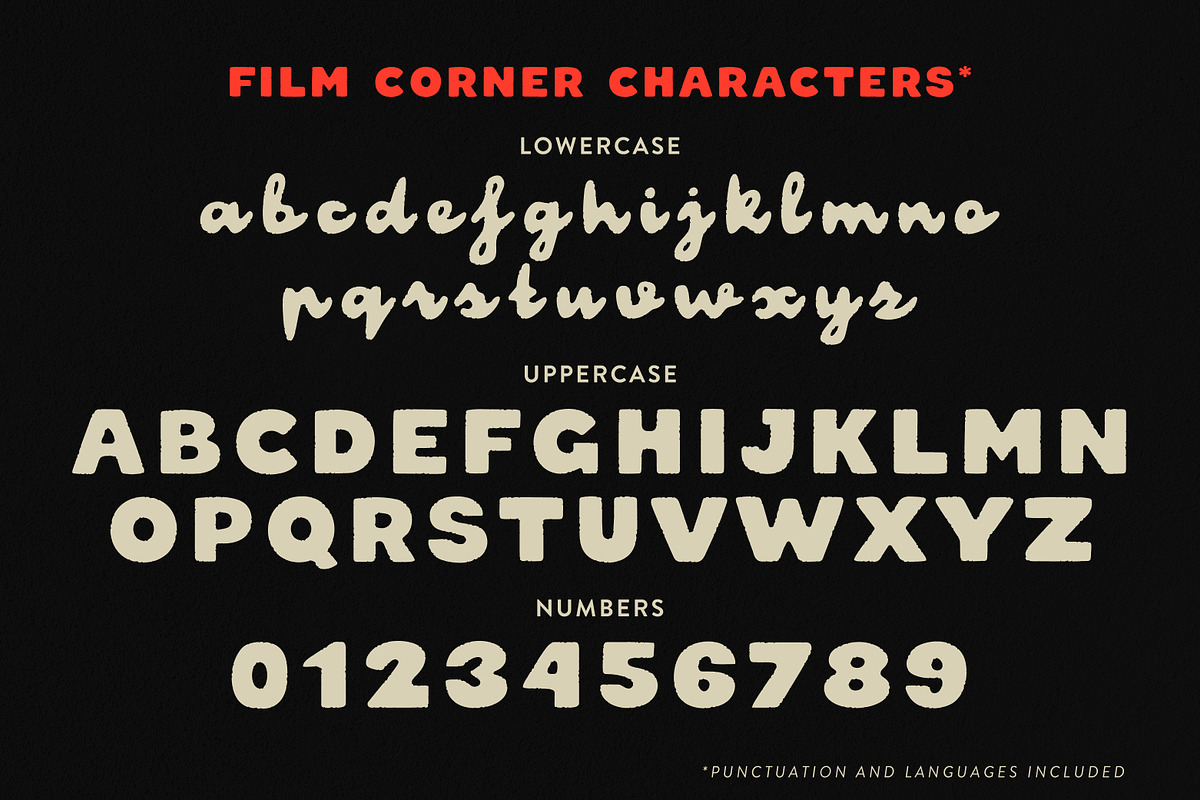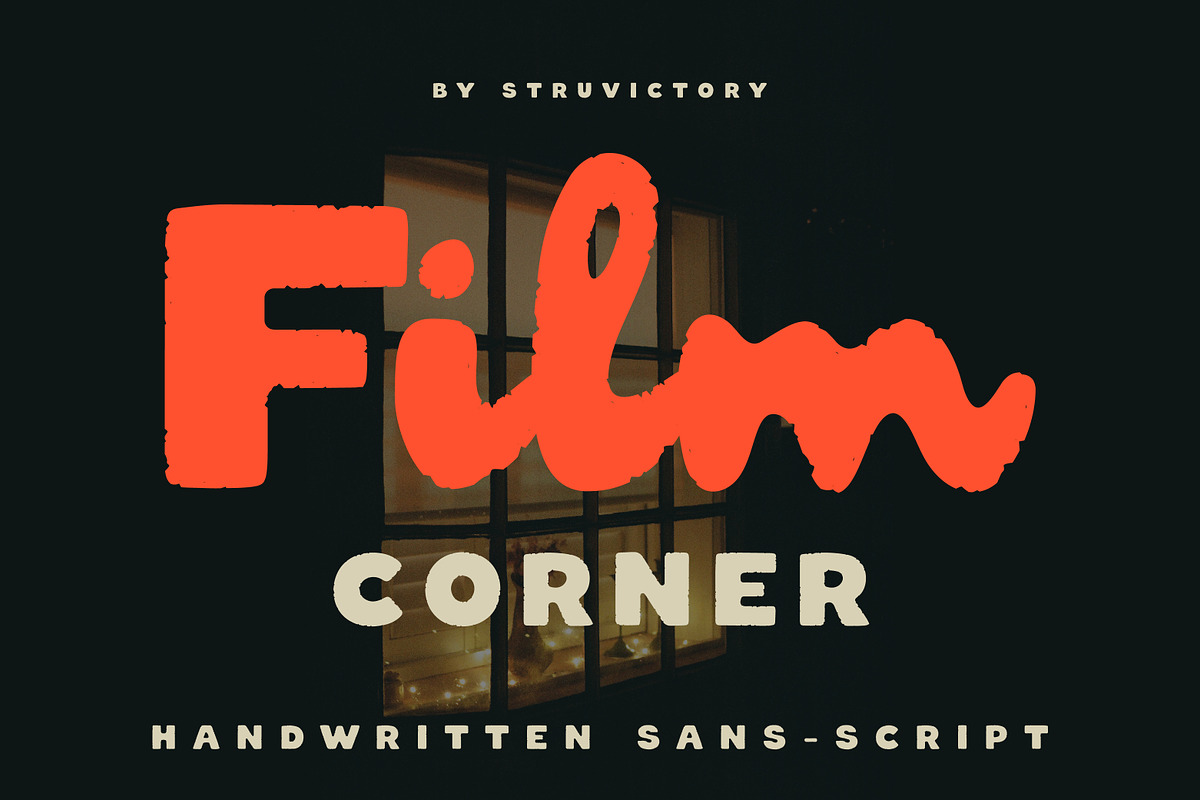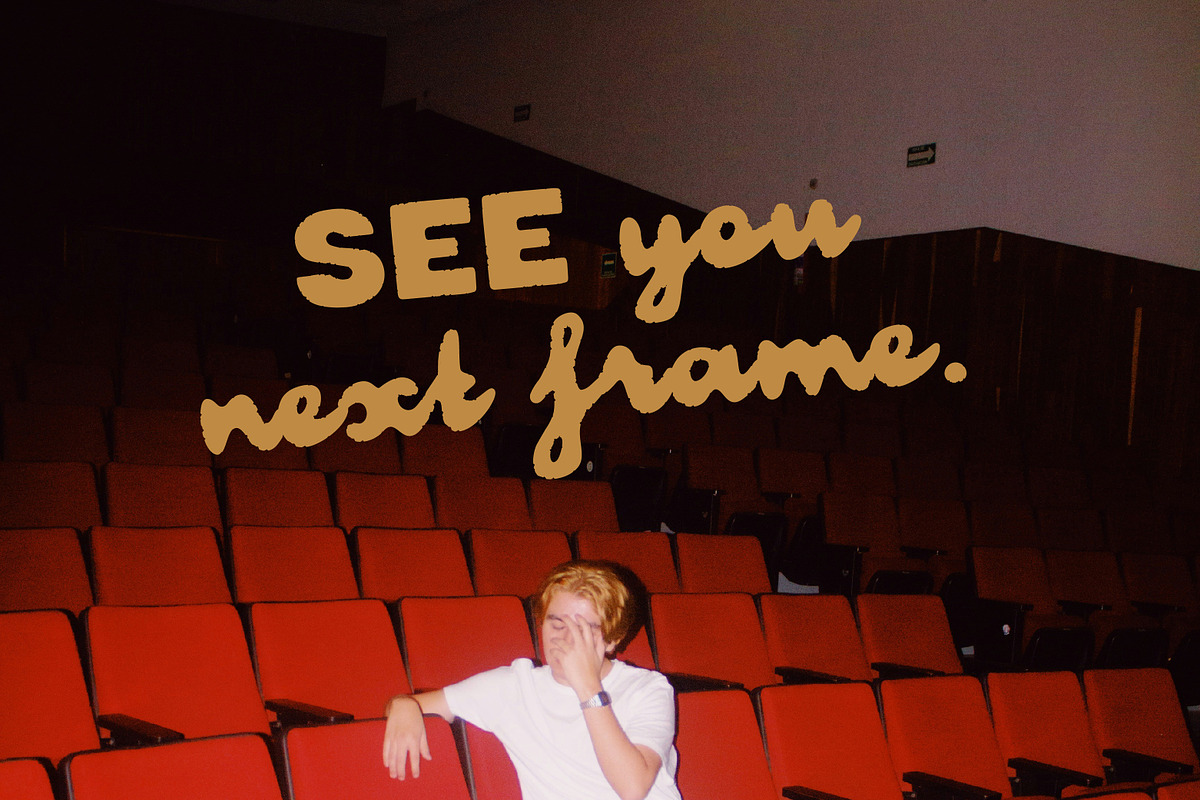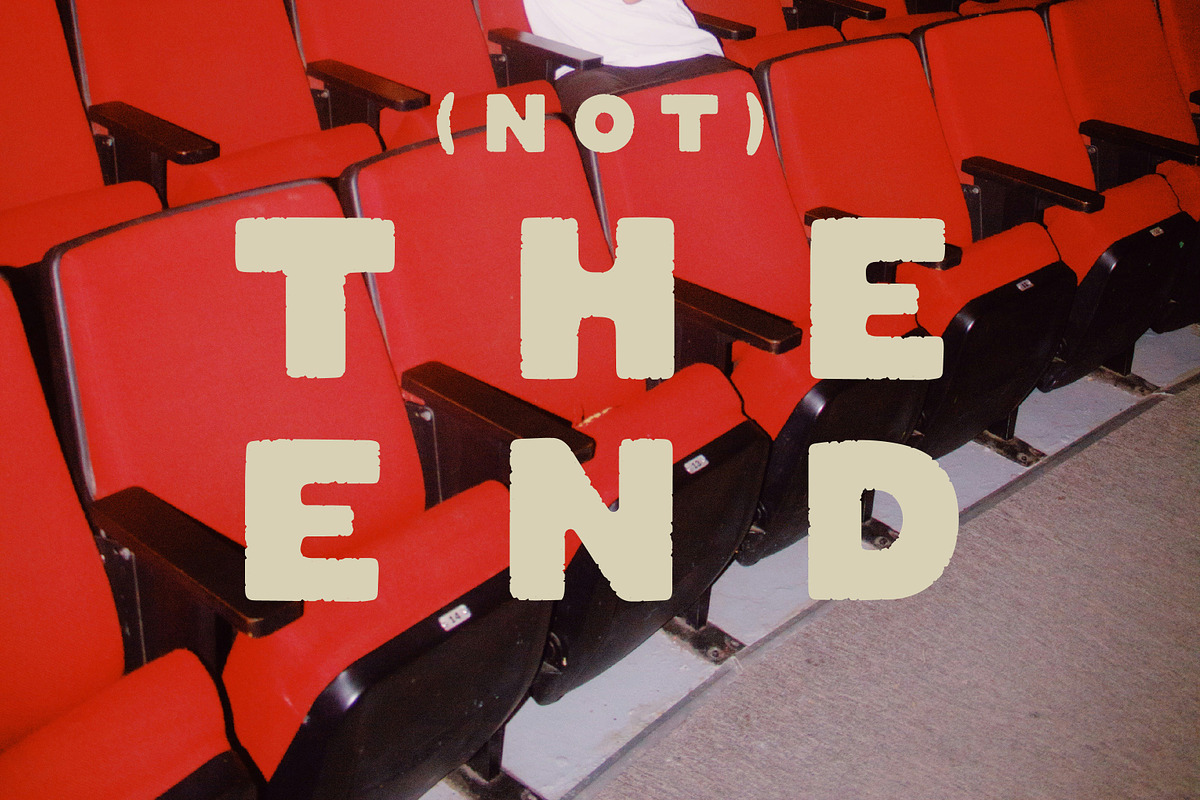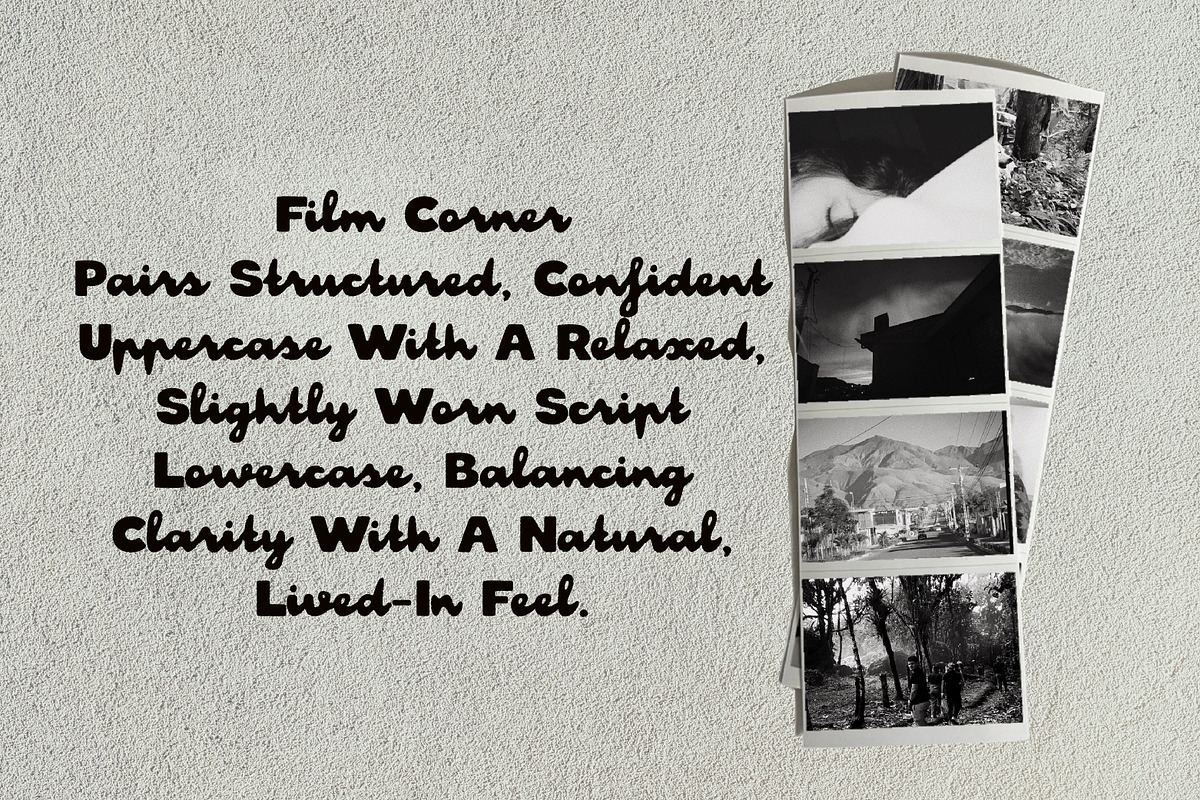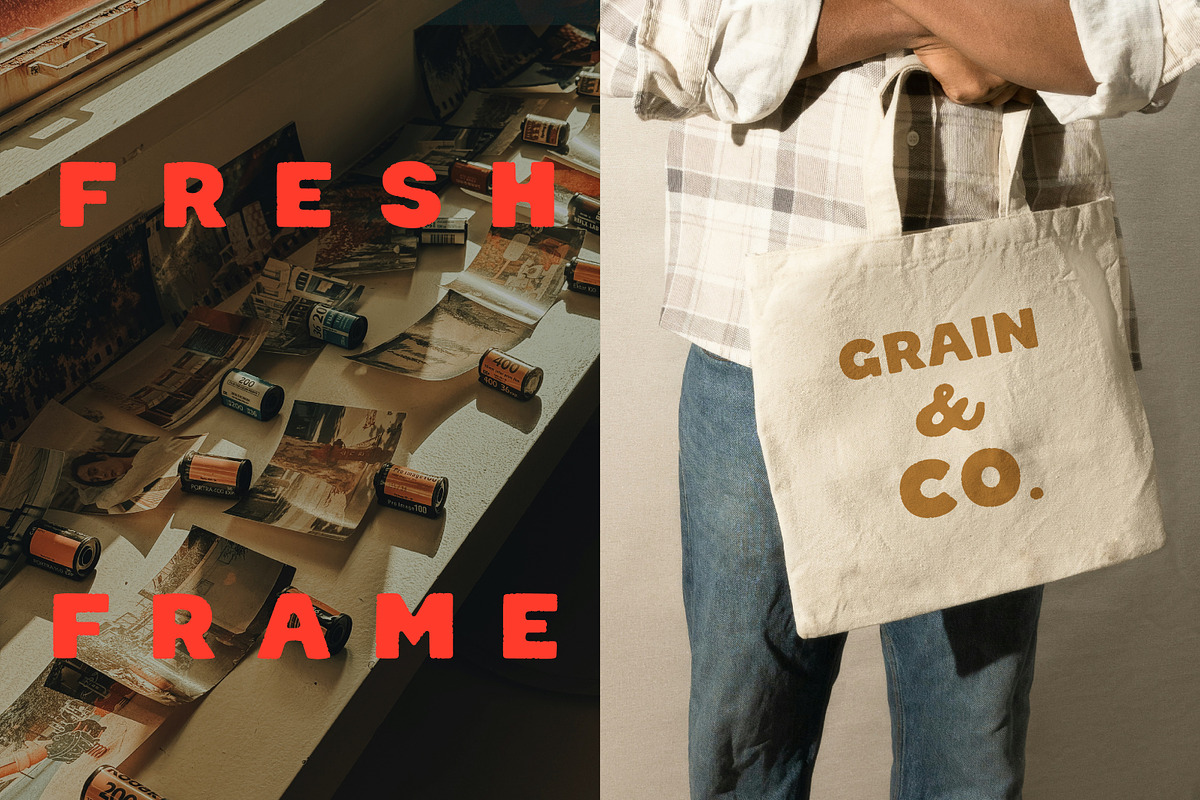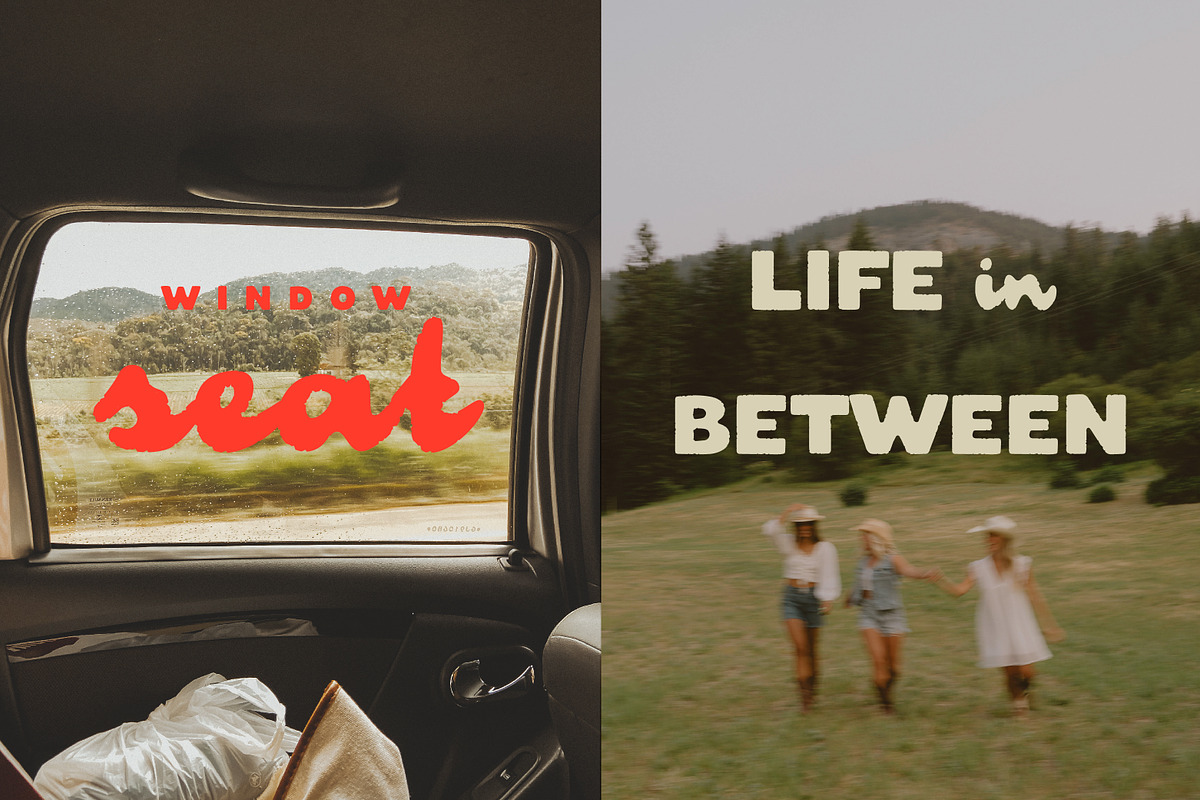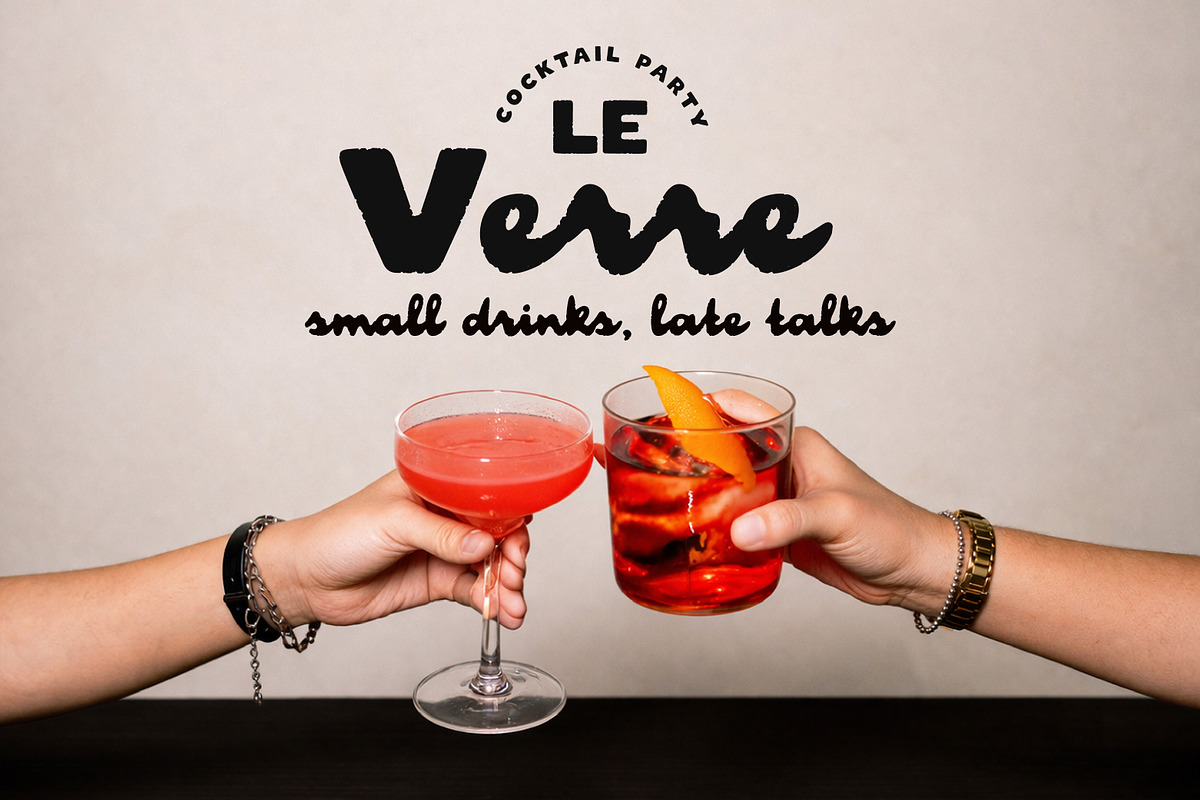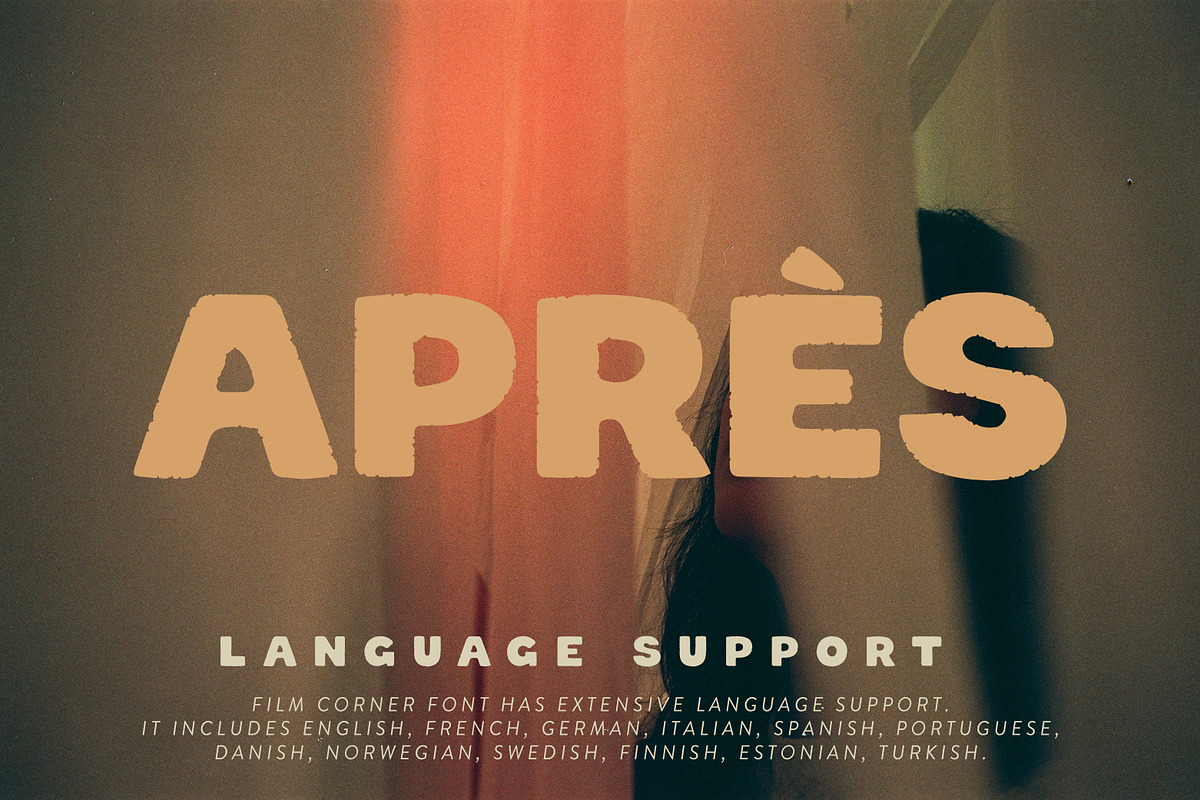
Film Corner Soft Handwritten Script
Film Corner is a warm, cinematic handwritten font that captures the quiet beauty of fresh frames, light leaks, and film hung to dry. It combines structured, confident uppercase with a relaxed, slightly worn script lowercase, creating a natural rhythm that feels both composed and effortlessly human. Inspired by analog moments, soft shadows, and the tactile charm of grain and texture, Film Corner brings a cozy, lived-in atmosphere to branding, posters, and storytelling visuals.